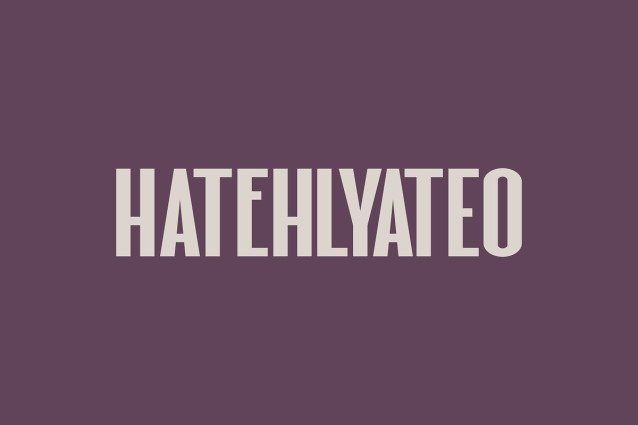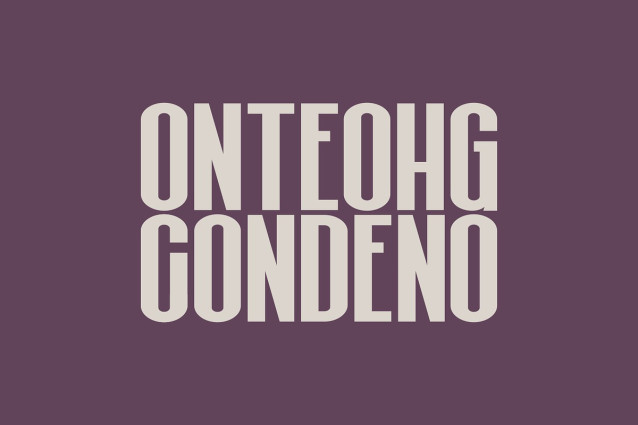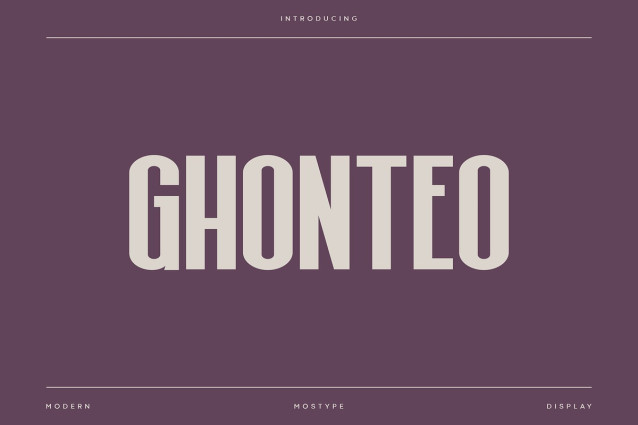
Ghonteo Font
Ghonteo Font is a modern condensed font to highlight your message, this font can be an option to maximize your design. Ghonteo is suitable for branding, poster, packaging design, headline, logo, motion graphic, movie title, magazine, future promotion and urban fashion.